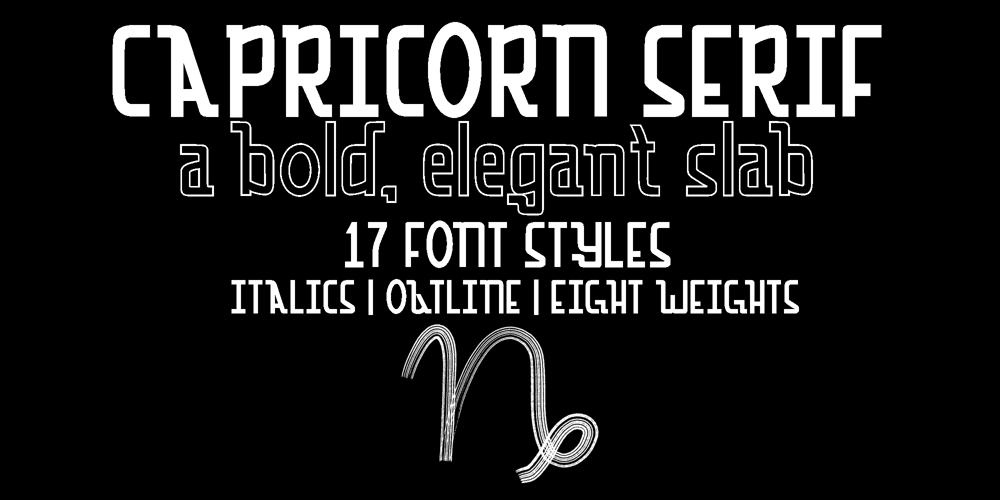
Capricorn Serif
Capricorn Serif font
Capricorn Serif Font Family was designed by Rachel McBride and published by Rachel McBride Creative. Capricorn Serif contains 17 styles and family package options. Capricorn Serif Typeface is a slab serif that includes seventeen font styles.This typeface comes in uppercase, lowercase, punctuations, numerals, symbols, web symbols, and multilingual support. Great for any titled or branded project.The goal of this font was to embody the bold, elegant, scientific, and selectively wonky aura of the Capricorn in one typeface. Anybody who needs this embodied in their work would do well to work with Capricorn Serif.Capricorn Serif has 430 glyphs, including enough multilingual support and diacritics to support most western languages!